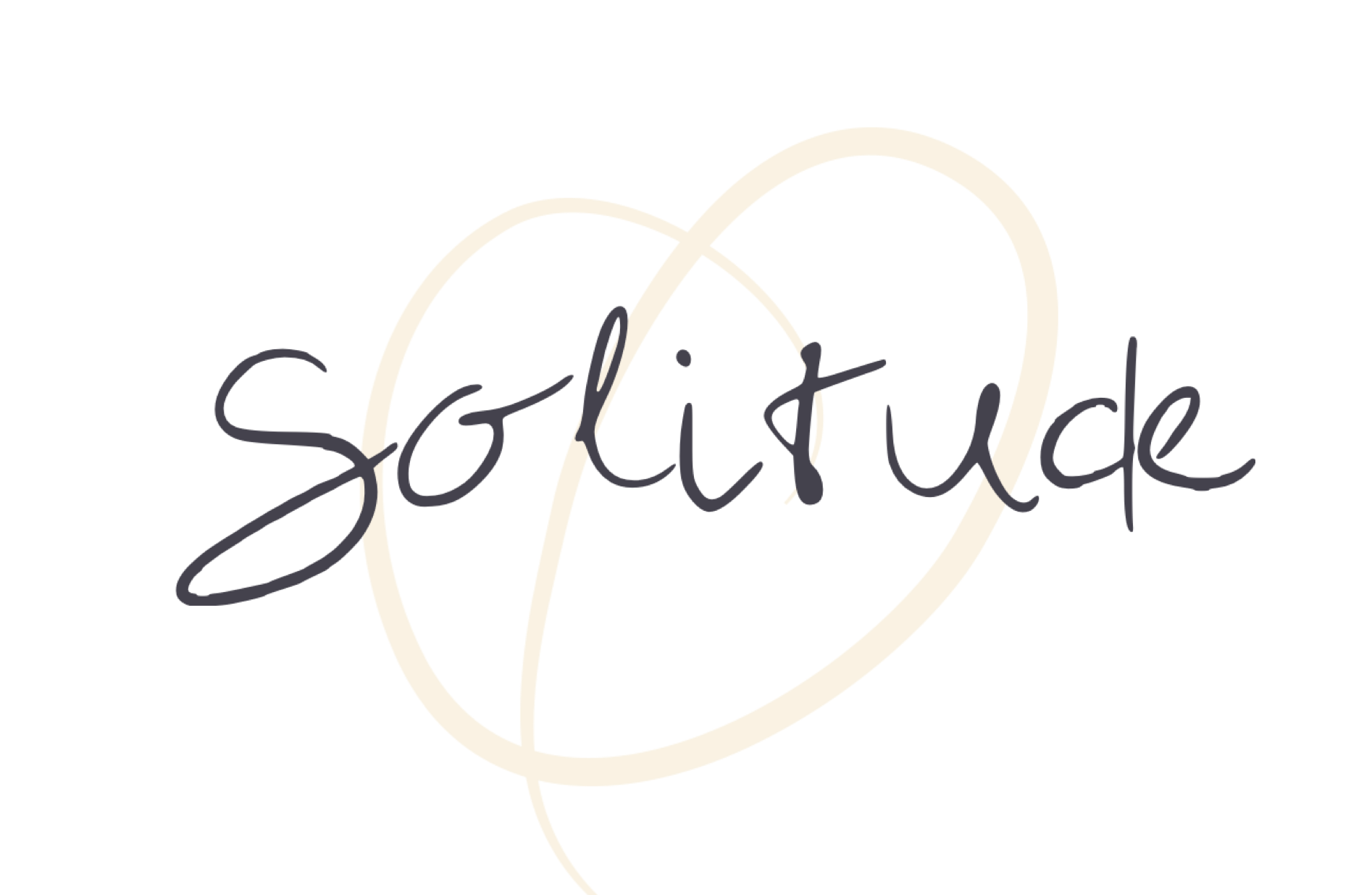
Solitude Handwritten Font
Solitude is a handwritten font. Ideal for logos, handwritten quotes, product packaging, header, poster, merchandise, social media & greeting cards.